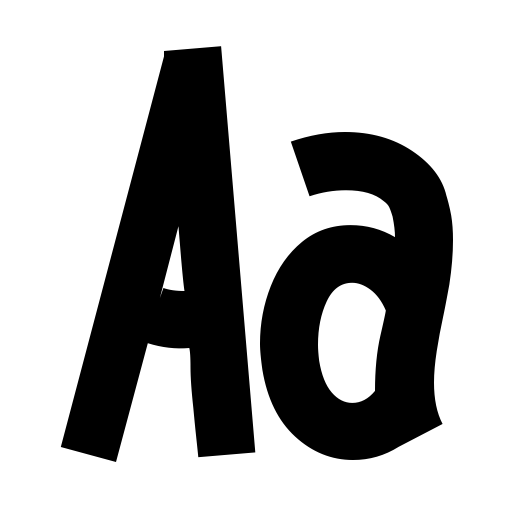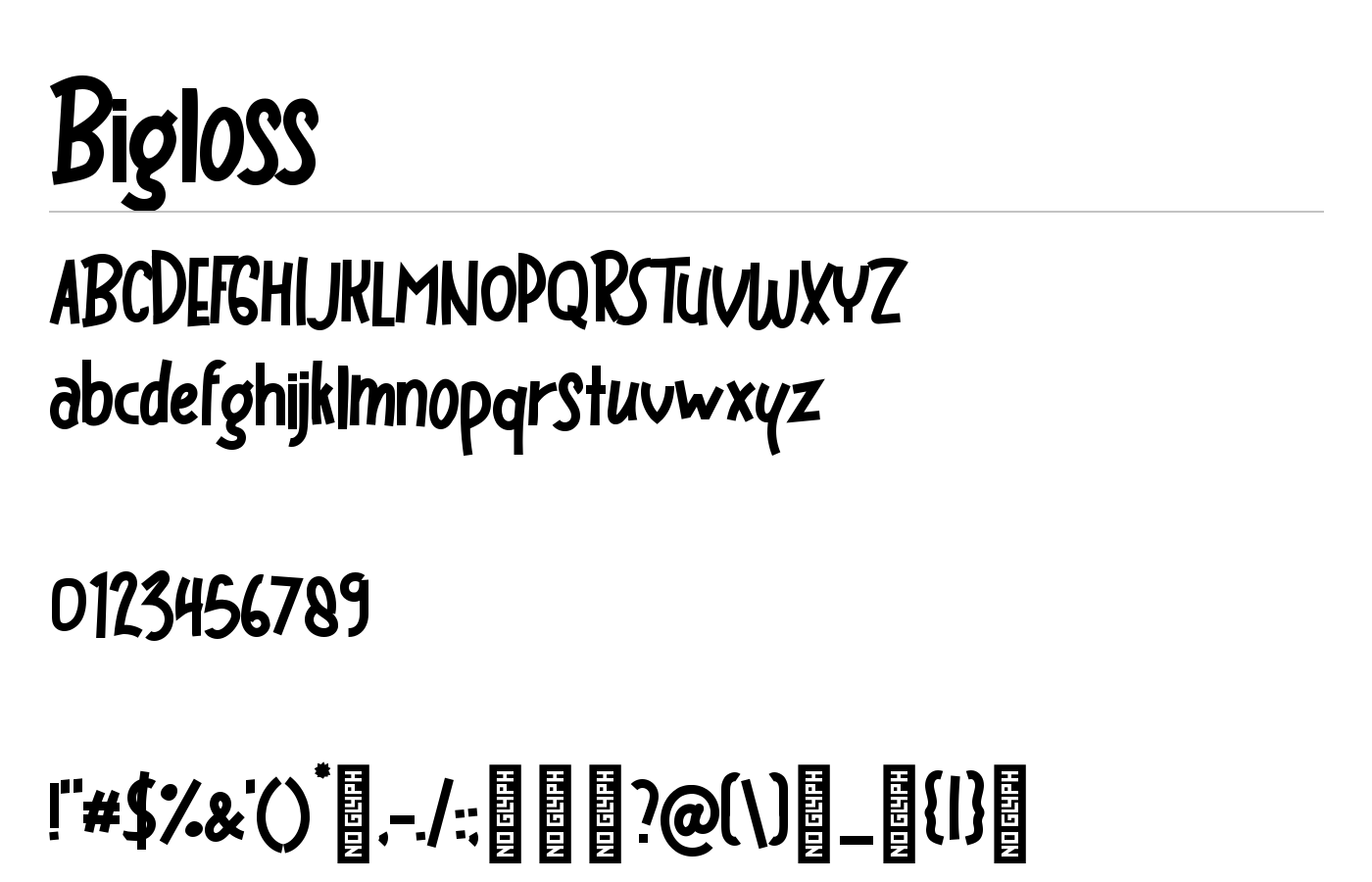
Bigloss is a quirky, playful sans serif font featuring uneven, tall letterforms with a lively, hand-drawn feel. Its irregular shapes and bold weight give it a quirky personality that works well for casual, fun branding, children’s books, and eye-catching headlines. This font brings energetic charm to any design needing a unique and informal touch.
Bigloss Font